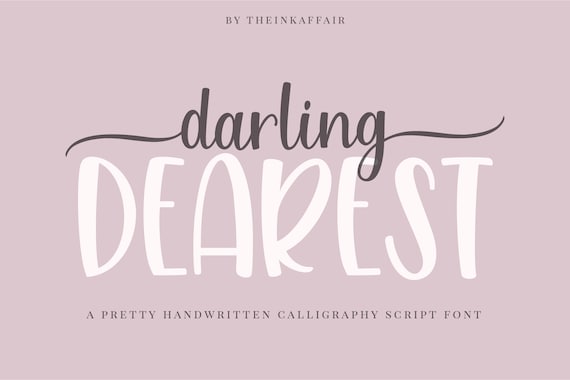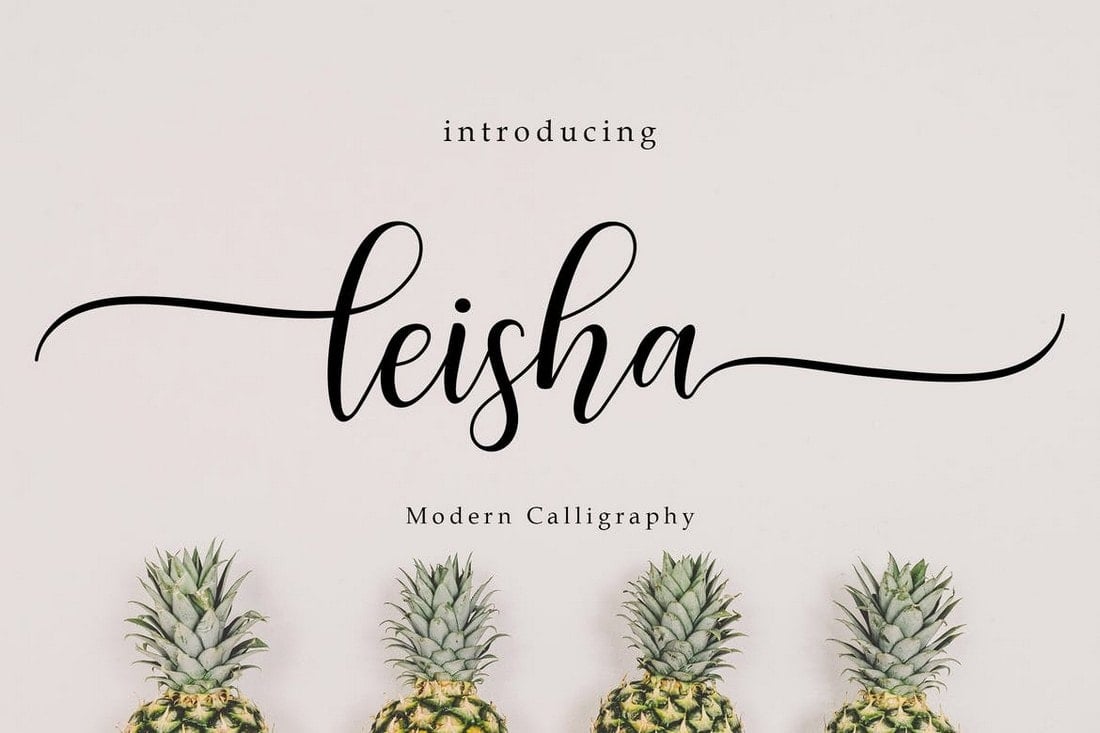
Fl br th st etc. 11 hours agoAmertha is a lovely and flowing modern calligraphy and handwritten font.
The most common modern calligraphy font material is. There are 5072 modern calligraphy font for sale on Etsy and they cost 711 on average. This font is PUA encoded which means you can access all of the glyphs and swashes with ease.
Calligraphy is an ancient writing technique using flat edged pens to create artistic lettering using thick and thin lines depending on the direction of the stroke. Many characters have stylistic alternatives-like swashes so headings made with Arizona seem polished and elegant. The writing is readable but is usually extravagant and embellished with flourishes.
Perfect for femine designs social media wedding invitations greeting cards and much more. We have 1246 free Calligraphy Handwritten Fonts to offer for direct downloading 1001 Fonts is your favorite site for free fonts since 2001. Arizonia is a modern casual font with thin upstrokes and thick downstrokes which makes it more suitable for titles and branding.
Hand lettering is an art form that takes practice and discipline and can mimic calligraphy or other styles. When you start modifying the shapes of the letters you are now illustrating hand-drawn lettering. Arizona is free to download and use in commercial applications.
This style can end up looking very similar to hand-lettered fonts but the difference is that calligraphy is written and not drawn. Introducing Aura Blue My second Modern Smooth Calligraphy Typeface available in. We have 1500 free Script Calligraphy Fonts to offer for direct downloading 1001 Fonts is your favorite site for free fonts since 2001.
Modern calligraphy typefaces differ from traditional calligraphy in that they do not adhere to specific lettering rules. The alternative characters were divided into several Open Type features such as Stylistic Sets Stylistic Alternates Contextual Alternate SWASH and Ligature. We have 93 free calligraphy cursive fonts to offer for direct downloading 1001 Fonts is your favorite site for free fonts since 2001 Aura Blue Modern Calligraphy Font Script Fonts on.
Hand-lettered is the style where you draw each letter individually as opposed to writing them as in cursive or calligraphy. The height of calligraphy was reached in the middle age where monks developed the narrow writing style called gothic allowing more words to fit on a single line as paper was expensive at the time. Namilla Script a new fresh modern script with a handmade calligraphy style decorative characters and a dancing baseline.
Introducing the collection of new modern calligraphy fonts free for personal use. It looks wonderful on wedding invitations thank you cards quotes greeting cards logos business cards and every other design which needs a handwritten touch. Calligraphy is an artistic writing style where the pressure is varied to create thick and thin lines all in a single stroke.
On calligraphy fonts some of the most popular ligatures are the ones with double letters ex. Oo ff ll ee etc Other common ligatures are those that make some of the most used letter combinations more special ex. Well youre in luck because here they come.
Jun 6 2020 - Explore Anedra Bushs board how tomodern calligraphy on Pinterest. The main sub-styles are traditional calligraphy and modern. Looking for Modern Calligraphy fonts.
It usually involves a nibbed pen or brush. WHAT IS THE PURPOSE OF LIGATURES. See more ideas about lettering fonts lettering tutorial lettering.
Namilla by Syahputra. Click to find the best 990 free fonts in the Modern Calligraphy style. Beatrices Modern Calligraphy Script Font with a calligraphy style So beautiful on invitation like greeting cards branding materials business cards quotes posters and more.